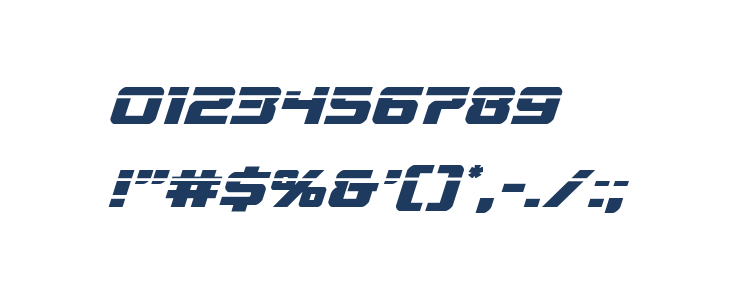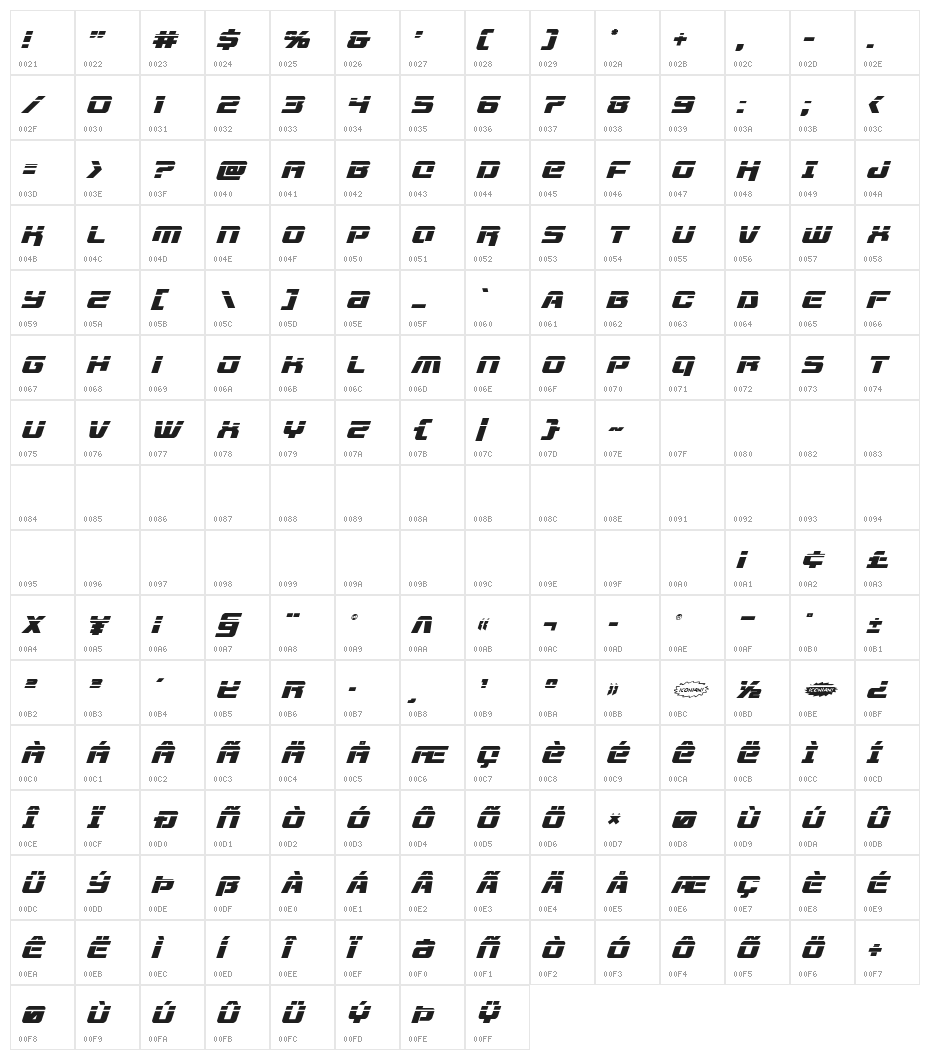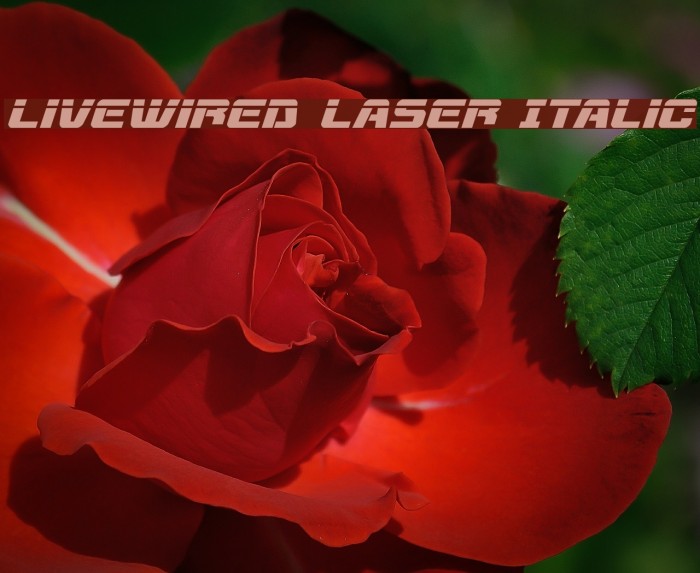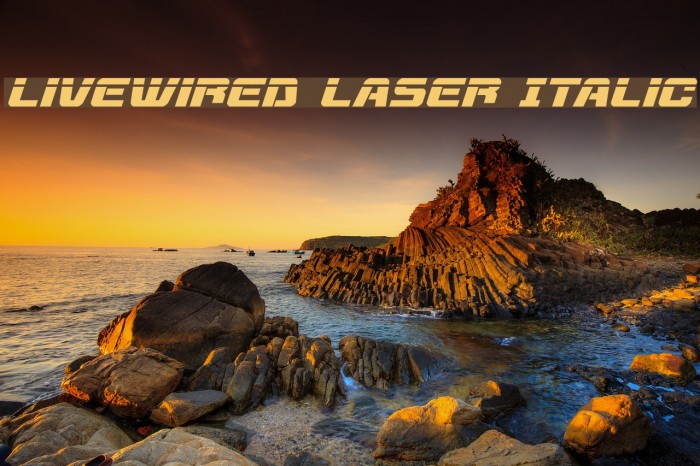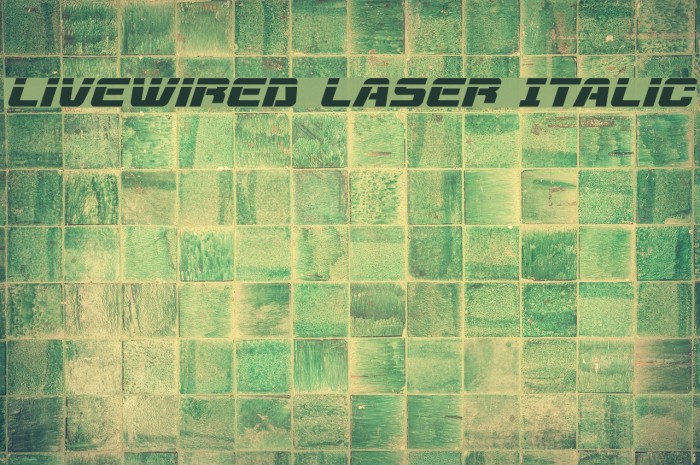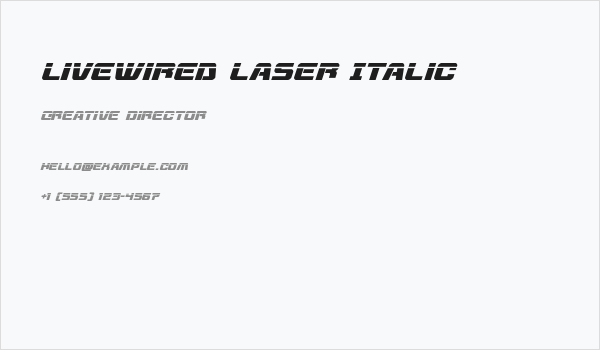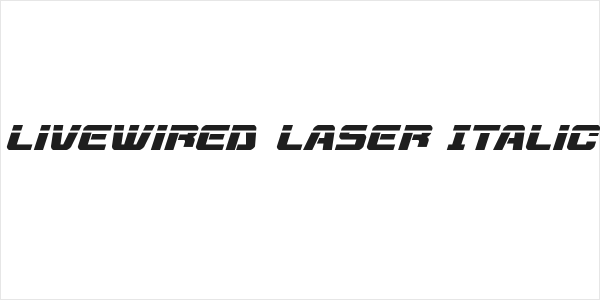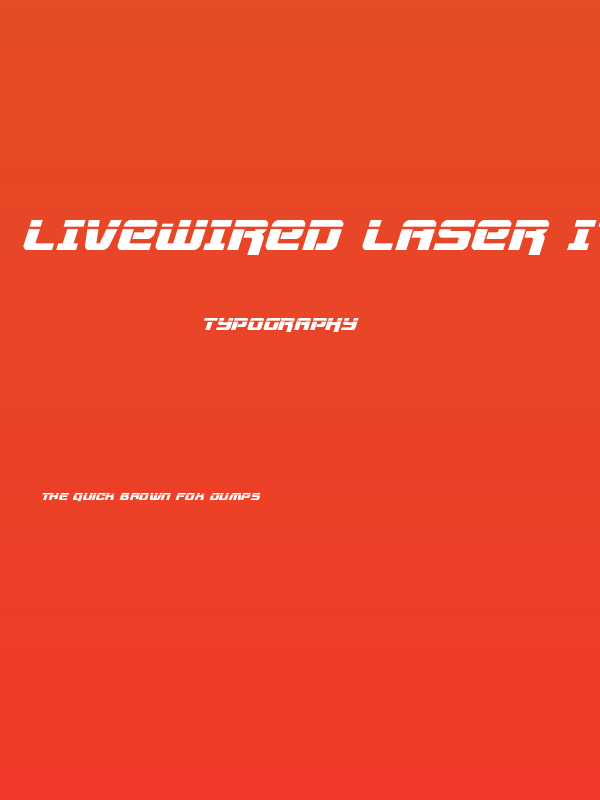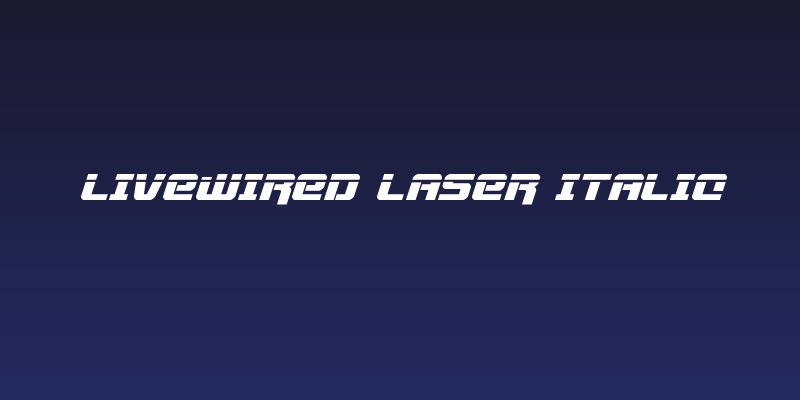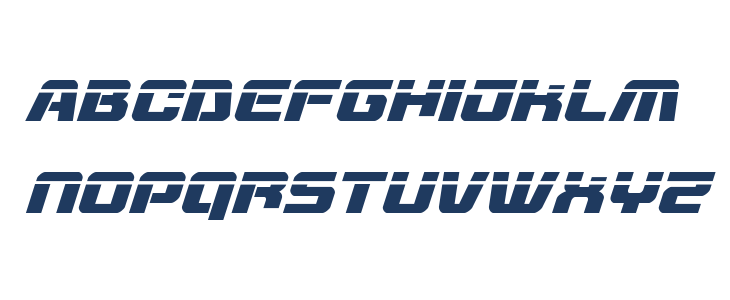
Livewired Laser Italic Font
Livewired Laser Italic Description
This font features a futuristic and dynamic style, characterized by its bold and italicized letterforms. The characters are designed with sharp angles and a forward-leaning stance, giving a sense of motion and speed. The strokes are thick and consistent, providing a strong visual impact. The uppercase and lowercase letters maintain a uniform appearance, while the numbers and special characters complement the overall aesthetic. This font is ideal for projects that require a modern and edgy look, such as technology branding, sports team logos, or sci-fi themed designs.
| Proposed Projects | Technology branding, sports team logos, sci-fi themed designs. |